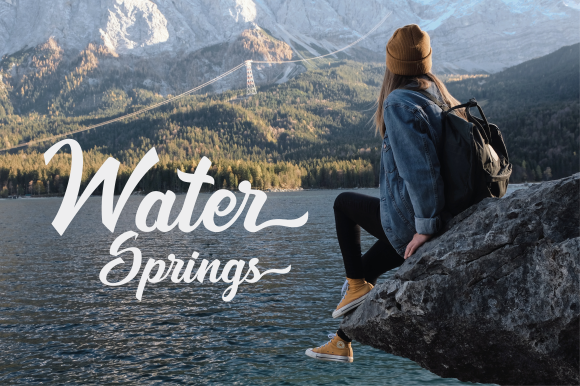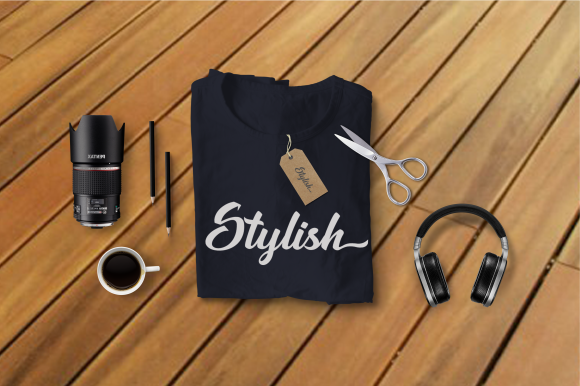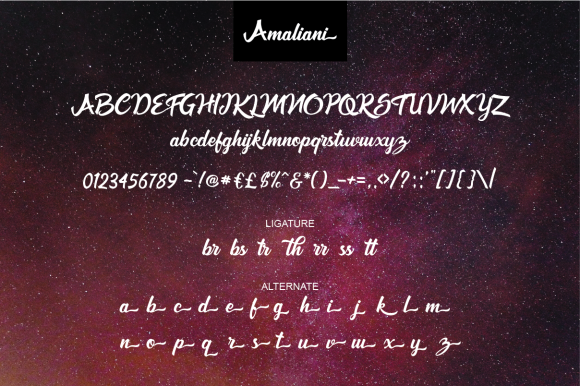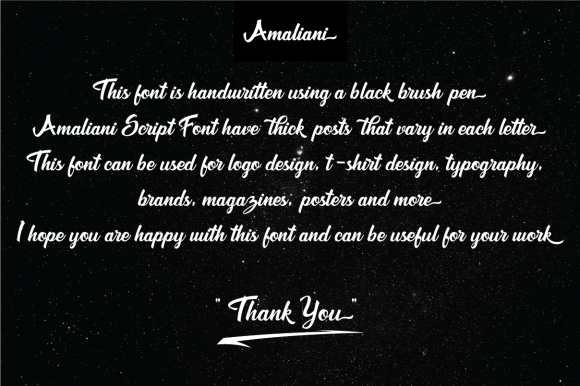
Amaliani Font
About Amaliani Font
The Amaliani is a handwritten script font. It was designed using a brush pen, and will add a striking touch to your designs.